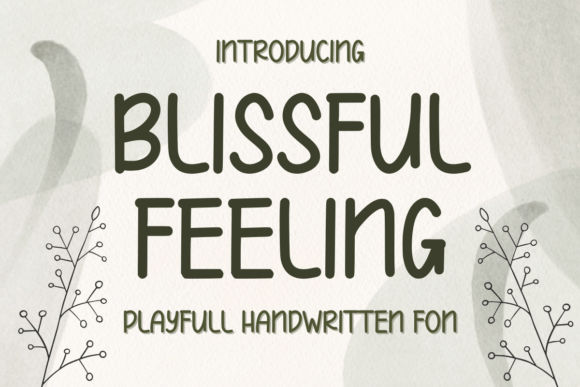
The Blissful Feeling Font: A Playful Companion for Creative Projects
Have you ever been in the middle of a design project, and suddenly, you just can’t seem to find the right font? I recall a particularly frustrating moment when I was working on a client’s wedding invitation. The design was beautiful, but the font just wasn’t right. It was too formal, too boring, or just didn’t match the playful vibe of the couple. That’s when I discovered the Blissful Feeling font, and it completely transformed my design.
In this article, we’ll dive into the world of Blissful Feeling, a playful handwritten font that’s perfect for crafts, planners, KDP, stickers, greeting cards, and more. We’ll explore its features, how to use it on various platforms, and some similar fonts you might love.
An Honest Review of Blissful Feeling Font
What I Love About Blissful Feeling Font ✨
• ✅ Cute and Friendly Style: Blissful Feeling has a unique, playful vibe that’s perfect for creative projects. It’s friendly, approachable, and adds a touch of whimsy to any design.
• ✅ Versatile: This font is incredibly versatile and works well for various applications, from crafts and planners to KDP and greeting cards.
• ✅ Easy to Read: Despite its playful nature, Blissful Feeling is surprisingly easy to read, making it perfect for body text or titles.
• ⚠️ Limited Formality: While Blissful Feeling is amazing for playful designs, it might not be the best choice for formal projects or professional applications.
• ⚠️ Glyph Limitations: As with any font, there might be limitations to the glyphs and special characters available. However, for most creative projects, Blissful Feeling has more than enough to get you started.
The Backstory of Blissful Feeling Font
Blissful Feeling Font was designed with one goal in mind: to create a playful, friendly font that brings joy to creative projects. The designer, inspired by the world of crafts and DIY, aimed to create a font that’s both fun and functional. With its cute and approachable style, Blissful Feeling Font has quickly become a favorite among crafters, designers, and makers.
Font Name Blissful Feeling Font
Author Letterayu
Q: What is Blissful Feeling Font best used for?
A: Blissful Feeling Font is perfect for crafts, planners, KDP, stickers, greeting cards, and more. It’s ideal for creative and playful projects.
Q: Is Blissful Feeling Font easy to read?
A: Despite its playful nature, Blissful Feeling Font is surprisingly easy to read, making it perfect for body text or titles.